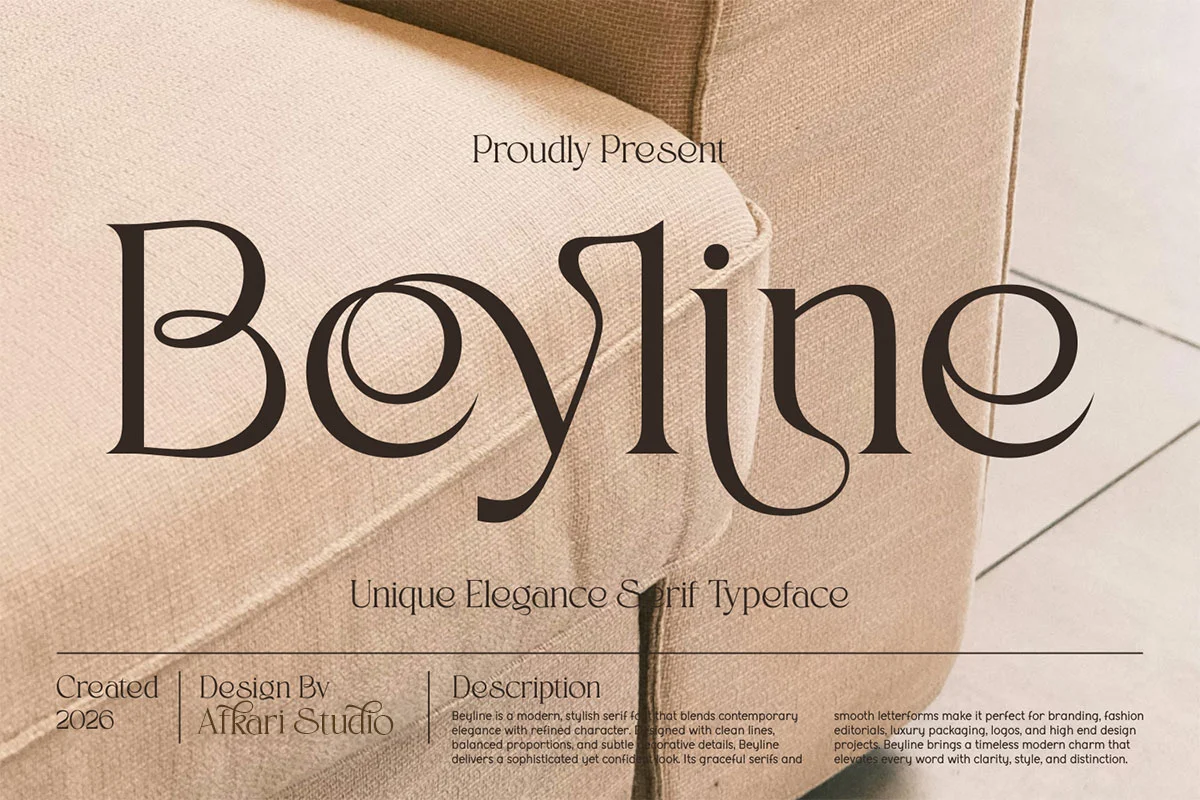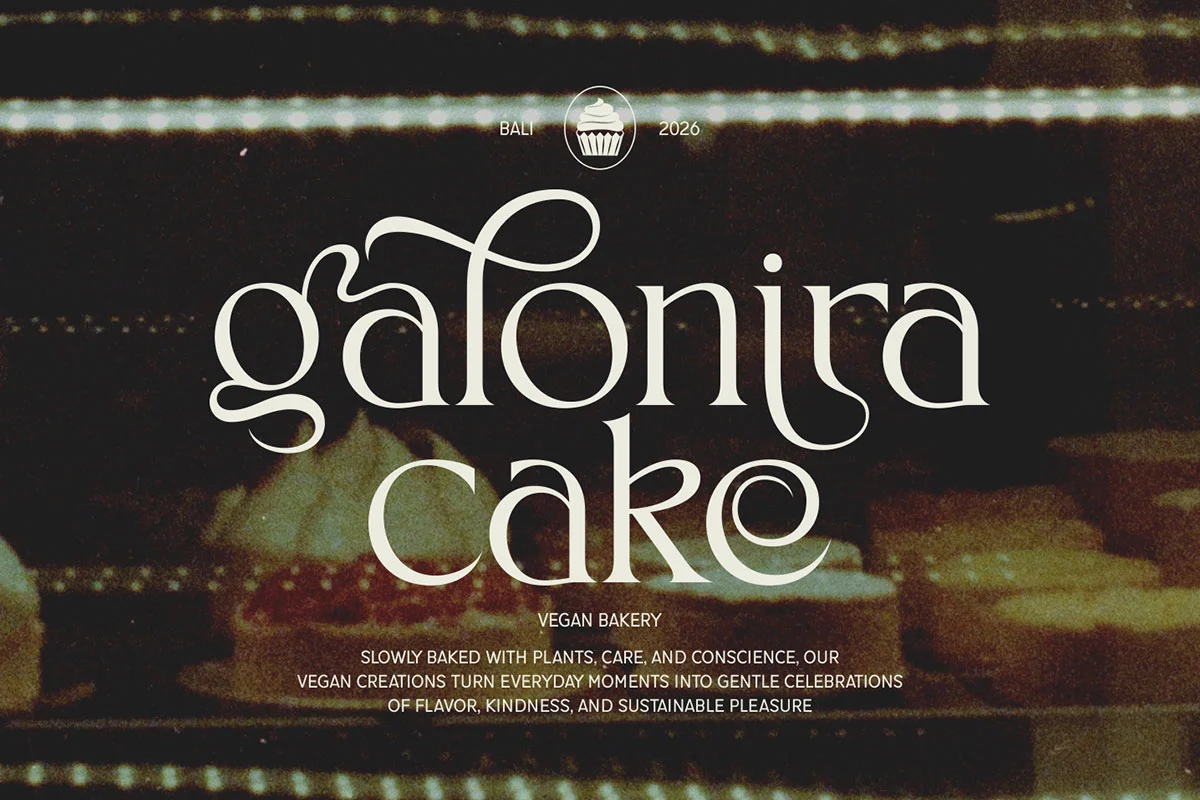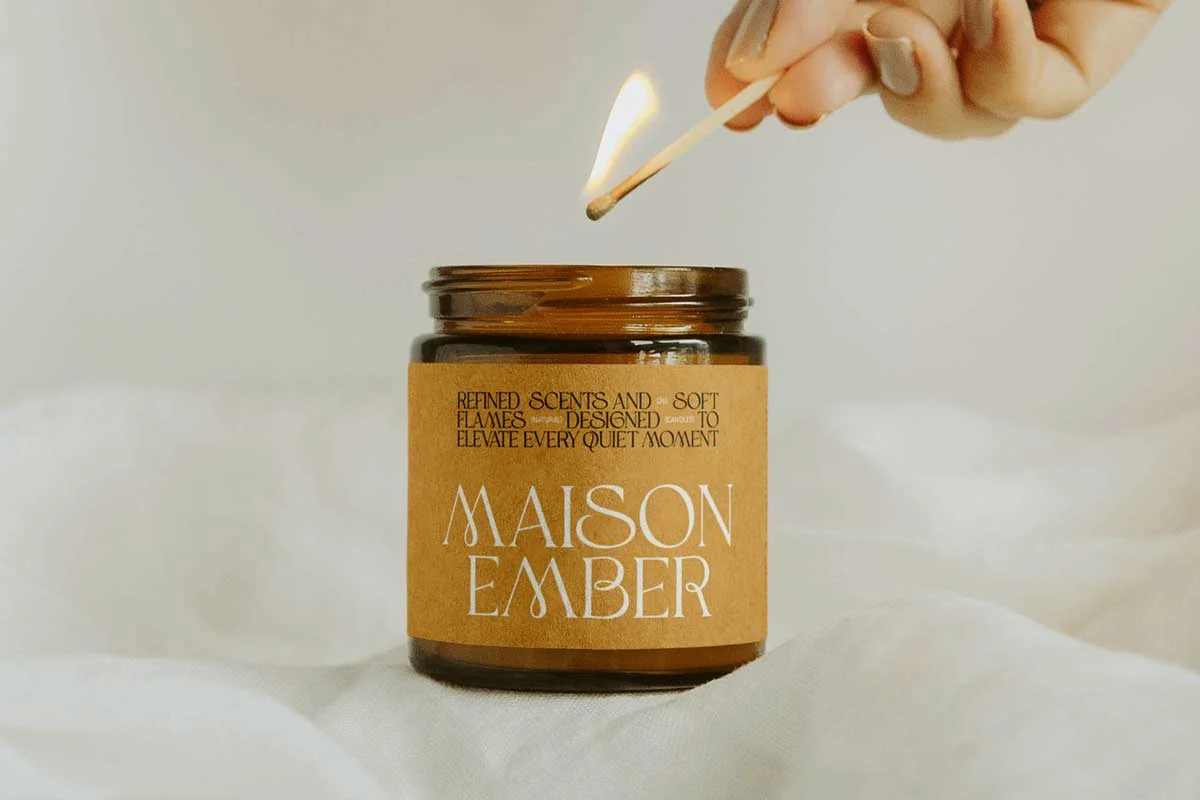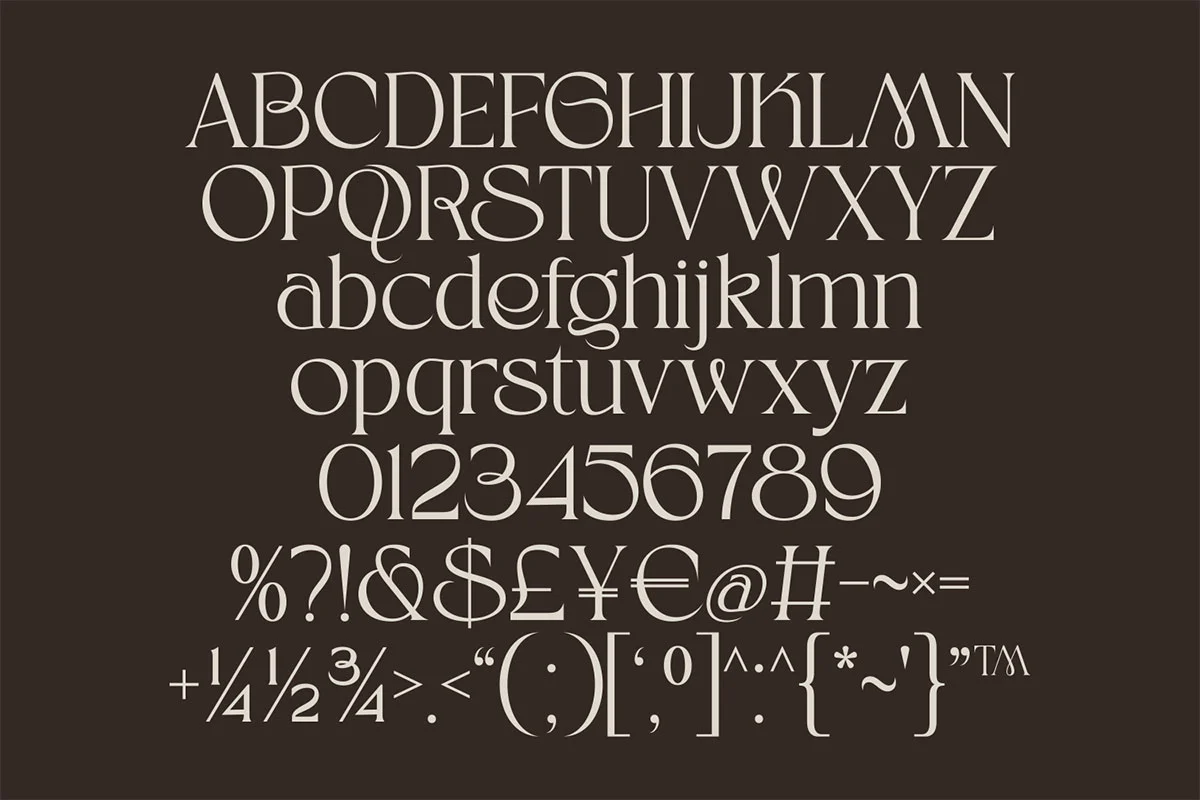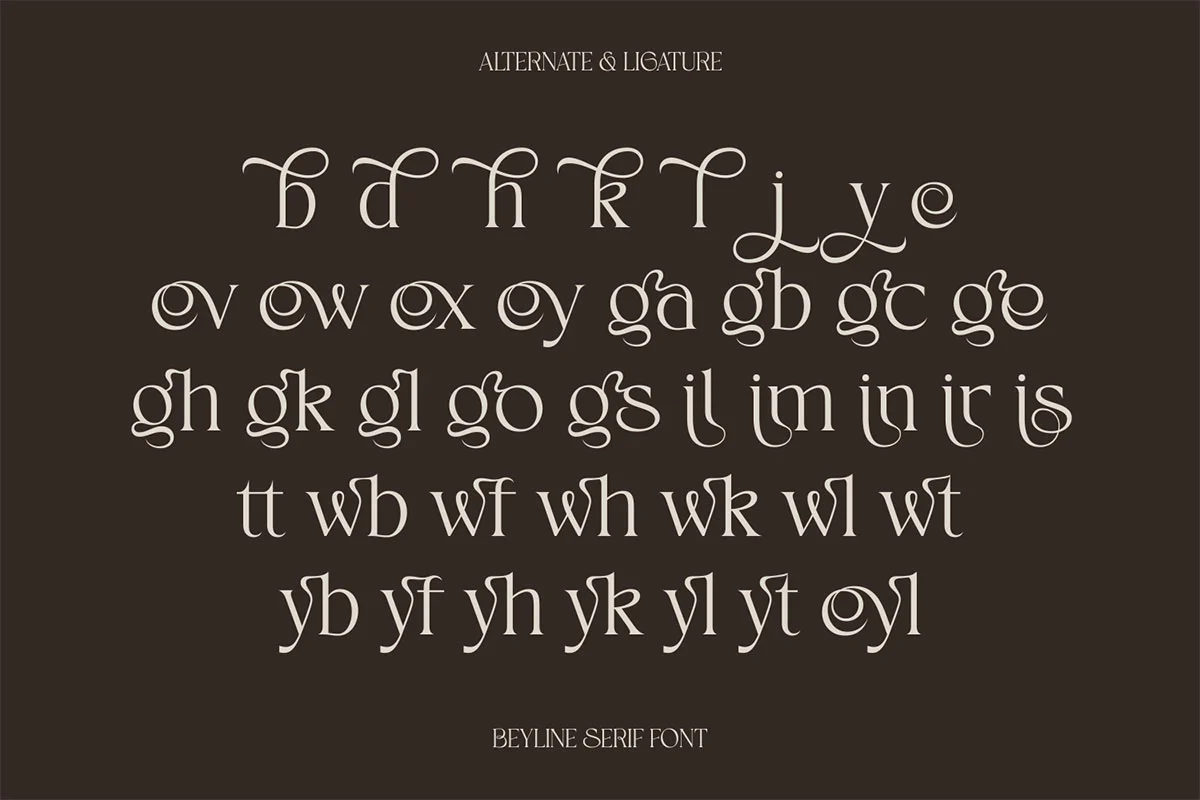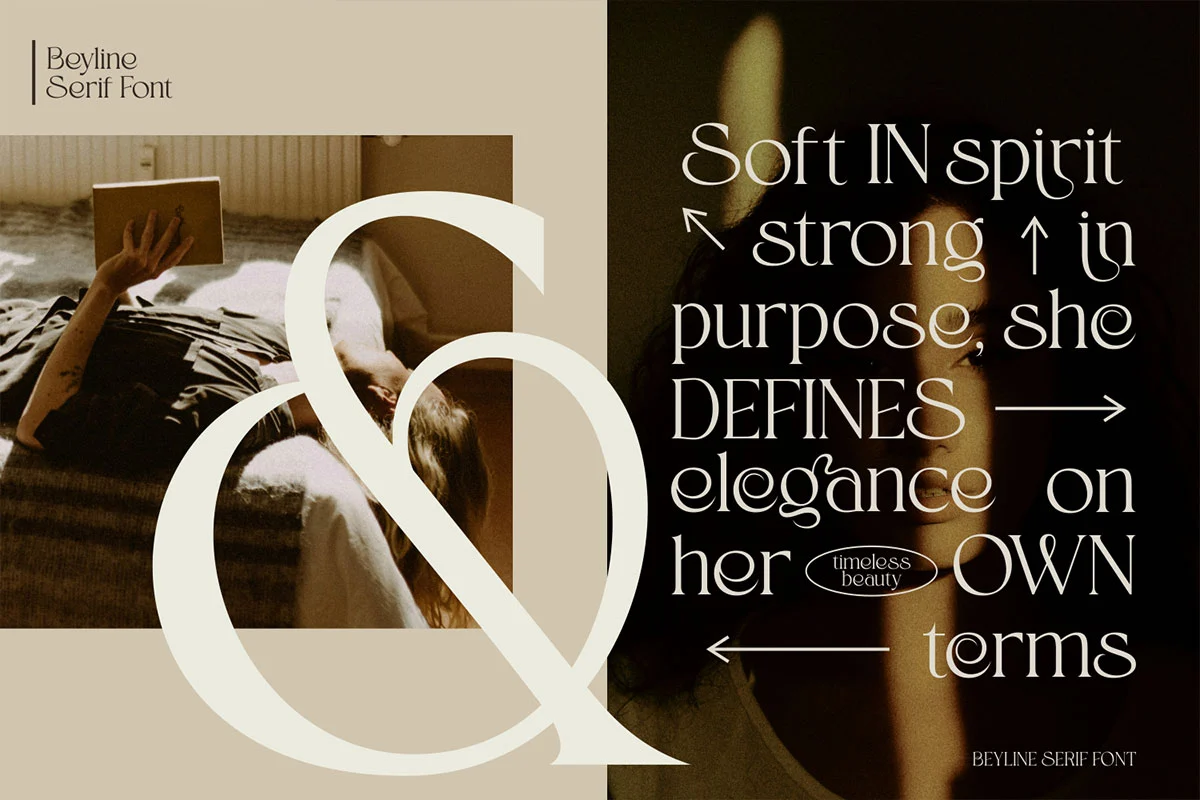
Beyline is a unique elegance serif typeface crafted to deliver refined beauty, artistic character, and timeless sophistication. Designed with graceful curves, stylish serif details, and balanced proportions, Beyline blends classic serif structure with a modern luxury aesthetic. The result is a distinctive display typeface that feels premium, confident, and visually captivating.
Perfect for luxury branding, high-end logos, fashion editorials, wedding invitations, boutique packaging, beauty products, and social media design, Beyline adds a polished and exclusive touch to every project. Its elegant contrast and carefully shaped letterforms create strong visual impact while maintaining excellent readability for headlines and short text compositions.
Highlighted Features:
- Uppercase, Lowercase, Number, and Punctuation
- Special alternates
- Stylish and refined letterforms
- Unique elegance serif typeface
If you are searching for a luxury serif font with a unique and elegant character, Beyline is ready to elevate your brand identity and creative projects with timeless sophistication.